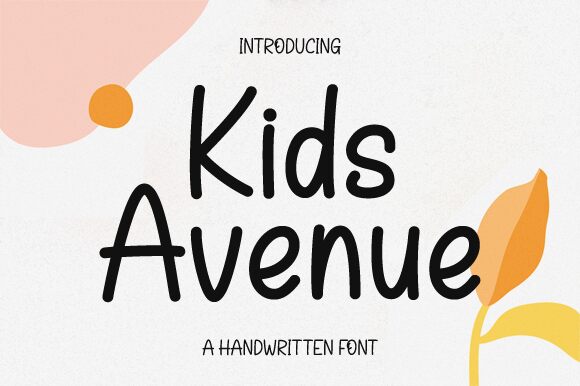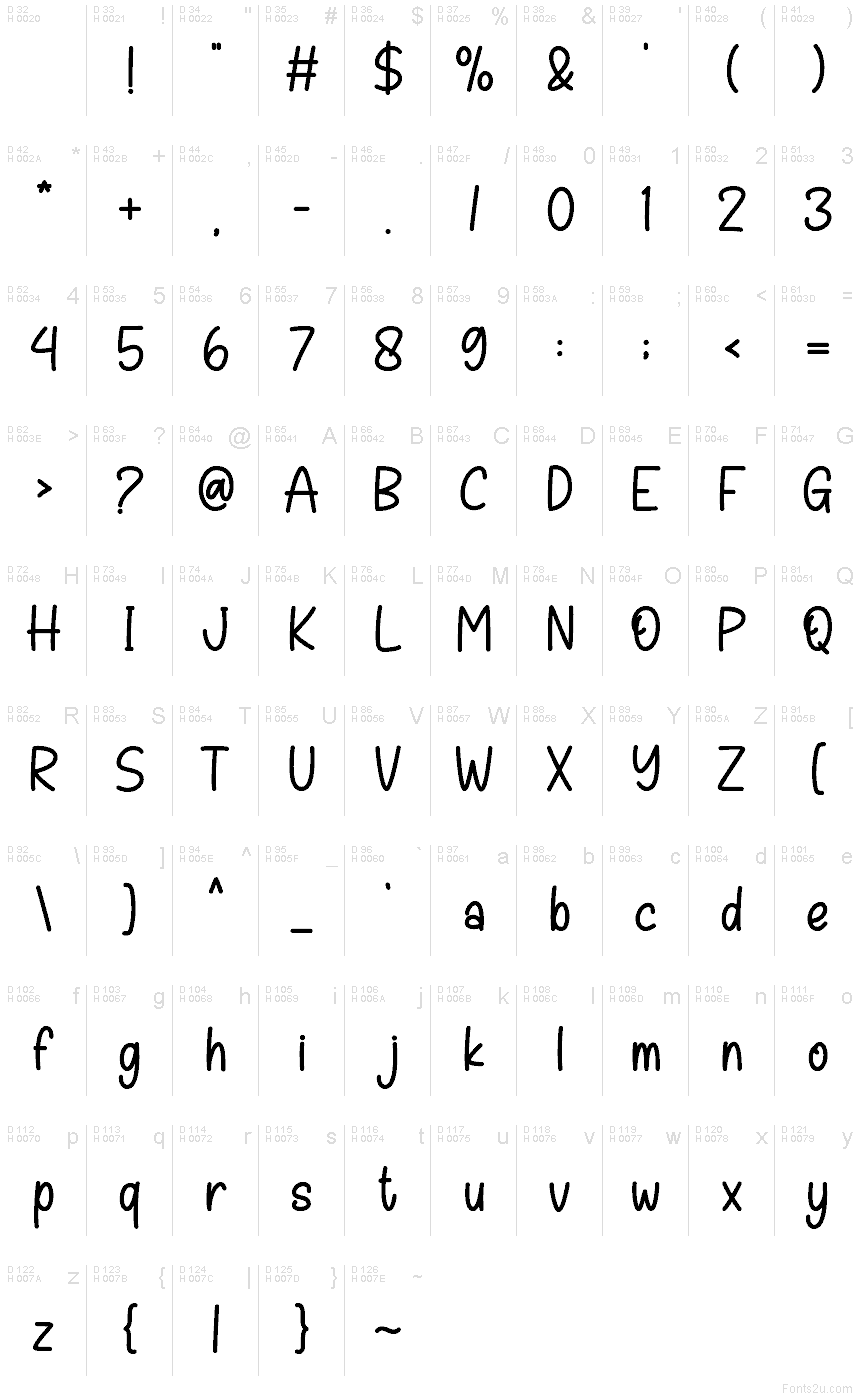
Kids Avenue font by Nirmala Creative is a free handwritten typeface that captures the loose, bouncy feel of a kid’s marker lettering while staying clean and highly readable. The rounded strokes, tall letters, and friendly curves feel playful without becoming messy, so you get that childlike energy in a layout that still looks professional and intentional.
Using Kids Avenue, you can bring warmth and charm to children’s book covers, classroom posters, kids’ menus, birthday invitations, toy packaging, and educational apps. This free font shines when set a bit larger so its rounded forms can breathe; pair it with a simple sans serif for body text to keep things clear and balanced.